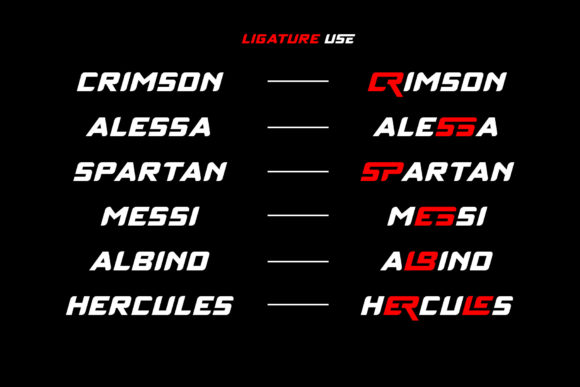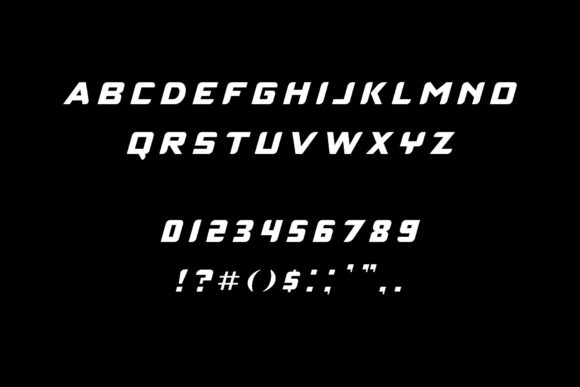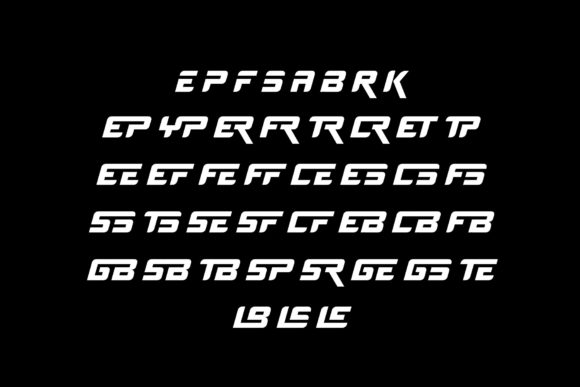
Introduction to Ecrisis Font Font
Fonts play a crucial role in design, and the Ecrisis Font font is a typeface that brings both character and versatility to any project. Whether you’re working on a branding project, a website, or a print design, the Ecrisis Font font offers a unique style that can elevate your work.
Ecrises is a cool and futuristic display font.
This font is ideal for writing web designs, business cards, or pretty much anything else that requires a bold, modern touch .
Key Features of Ecrisis Font Font
Why Choose Ecrisis Font Font?
The Ecrisis Font font is more than just a typeface – it’s a design tool that helps you communicate your message with style and clarity. Its unique character set and versatile design make it suitable for a wide range of applications, from elegant invitations to bold headlines.
With its carefully crafted letterforms and balanced proportions, the Ecrisis Font font ensures readability and visual appeal across all mediums.
What makes Ecrisis Font font special?
The Ecrisis Font font stands out with its unique design, exceptional readability, and versatility across various design applications.